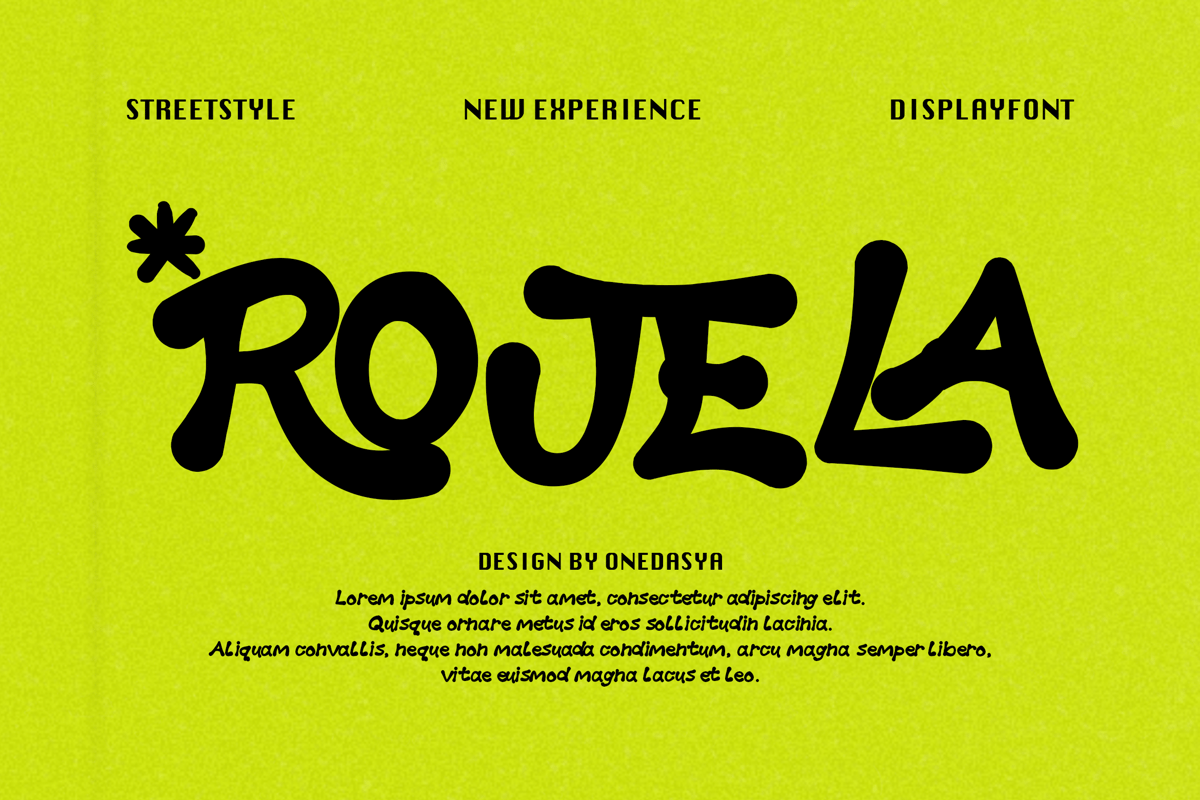
Rojela – Playful Hand-Drawn Display Font
Bold, raw, and unapologetically handmade — Rojela is the streetwear typeface your designs have been missing.
Rojela is a playful hand-drawn display font inspired by the bold and expressive spirit of streetwear culture. Its organic, imperfect letterforms carry an energetic handmade personality that instantly sets any design apart from the crowd.
The casual, dynamic character of this typeface makes it a natural fit for projects that demand a youthful, authentic, and effortlessly cool urban edge.
Perfect For:
- Streetwear & Fashion Branding
- T-Shirt & Apparel Design
- Posters & Flyers
- Logo & Brand Identity
- Stickers & Merchandise
- Album & Music Artwork
- Social Media Graphics
- Packaging Design
- Editorial & Advertising
- Urban Lifestyle Projects
Rojela brings a playful handmade attitude to modern streetwear typography — helping your creative work stand out with genuine personality.